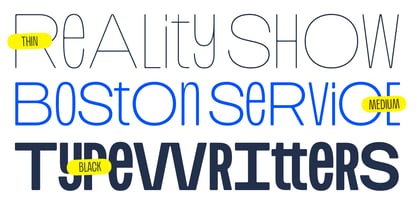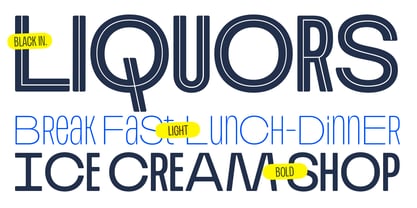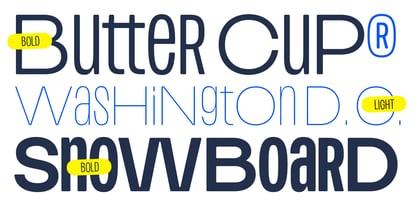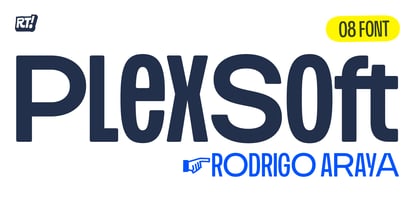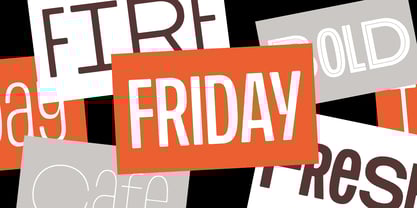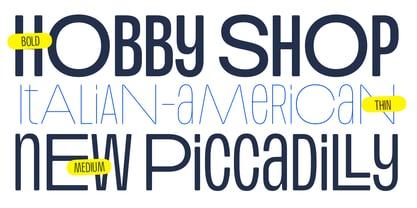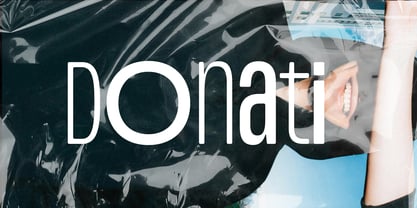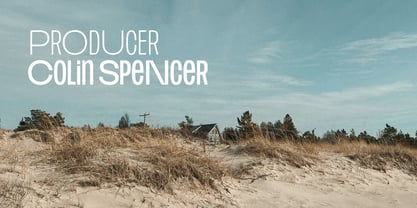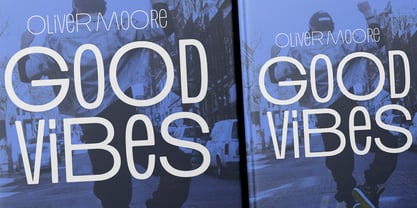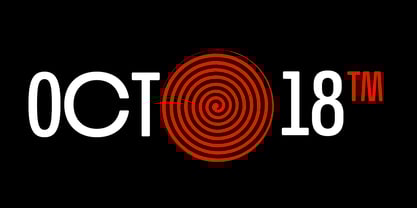
Plex Soft
by RodrigoTypo
The Plex Soft Font Family was designed by Rodrigo Araya Salas and published by RodrigoTypo. Plex Soft contains 8 styles and family package options.
Plex Soft is a beta version of Plex, it contains different weights, in addition to having OpenType capitalization options that expand to include the Cyrillic alphabet, perfect for titles.